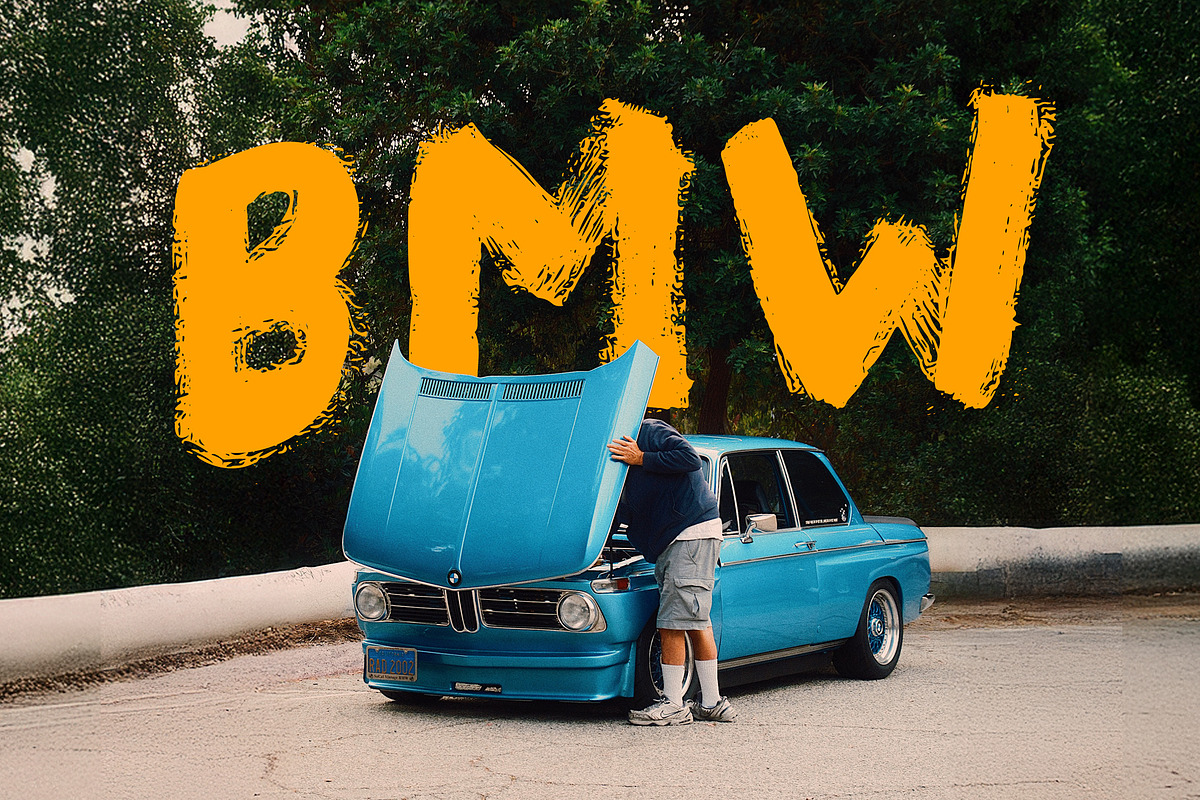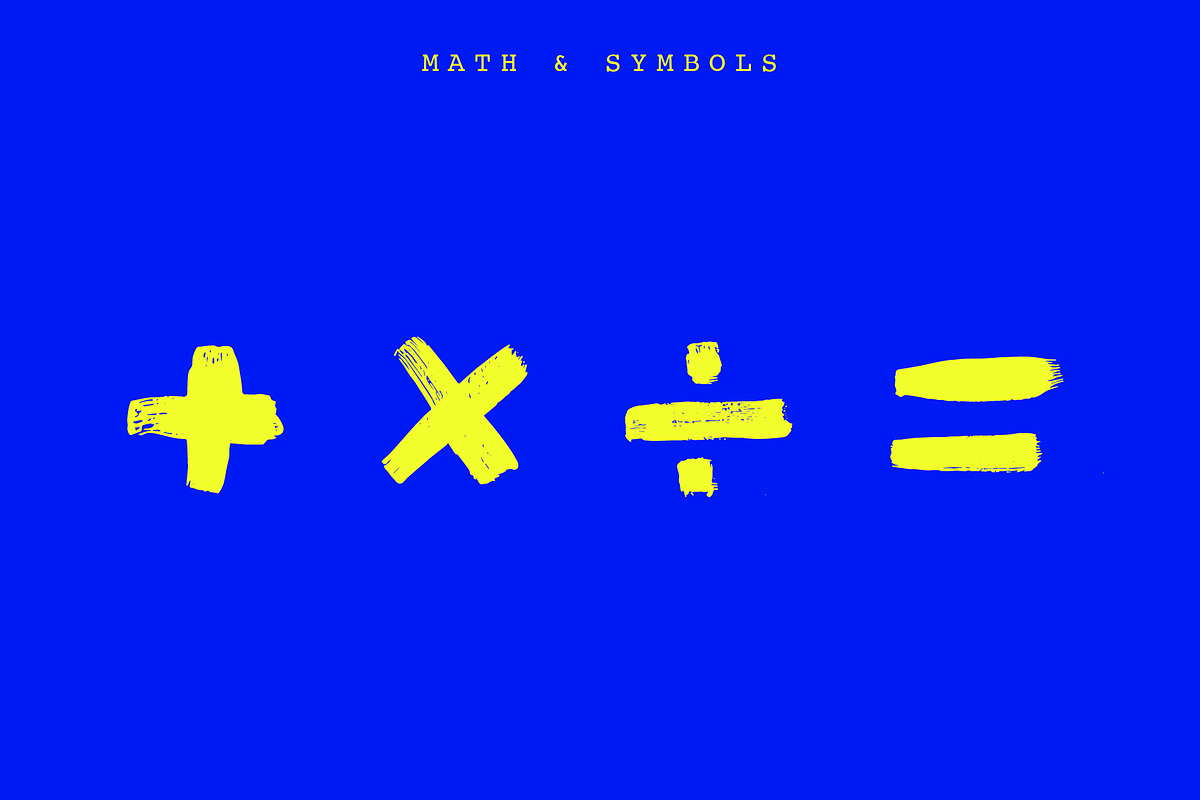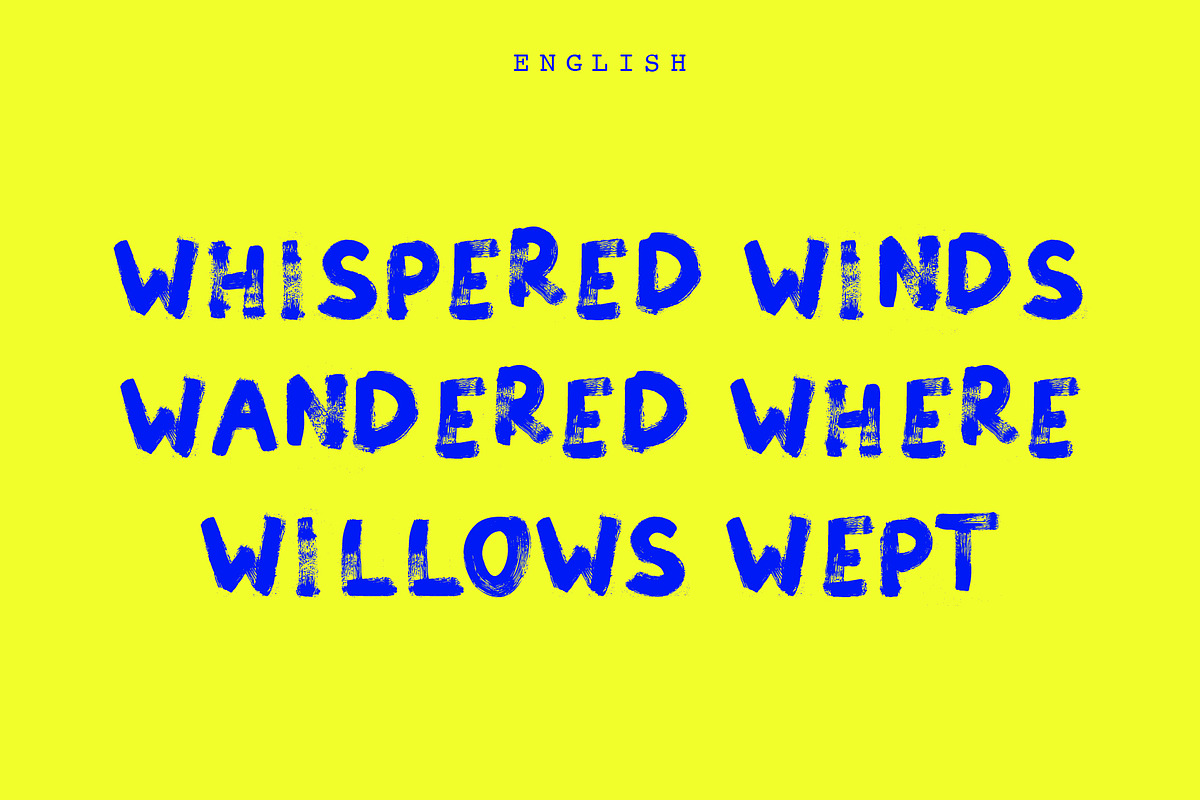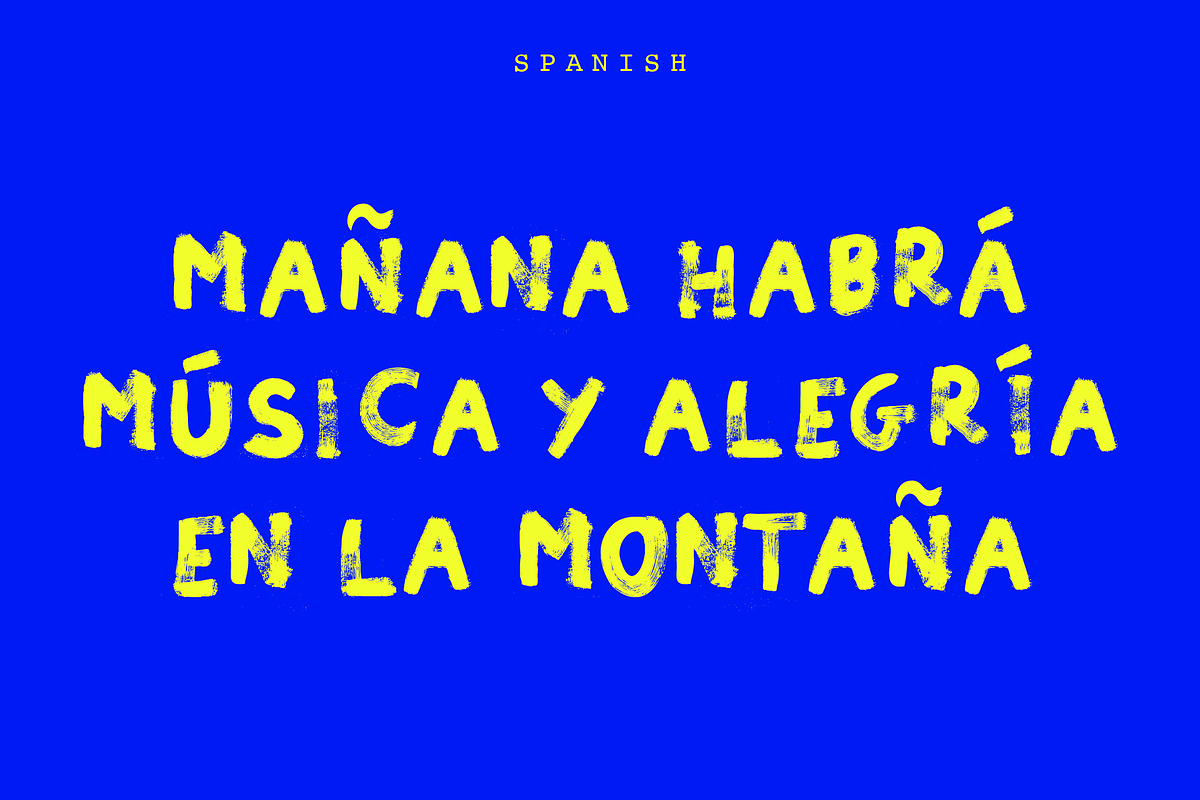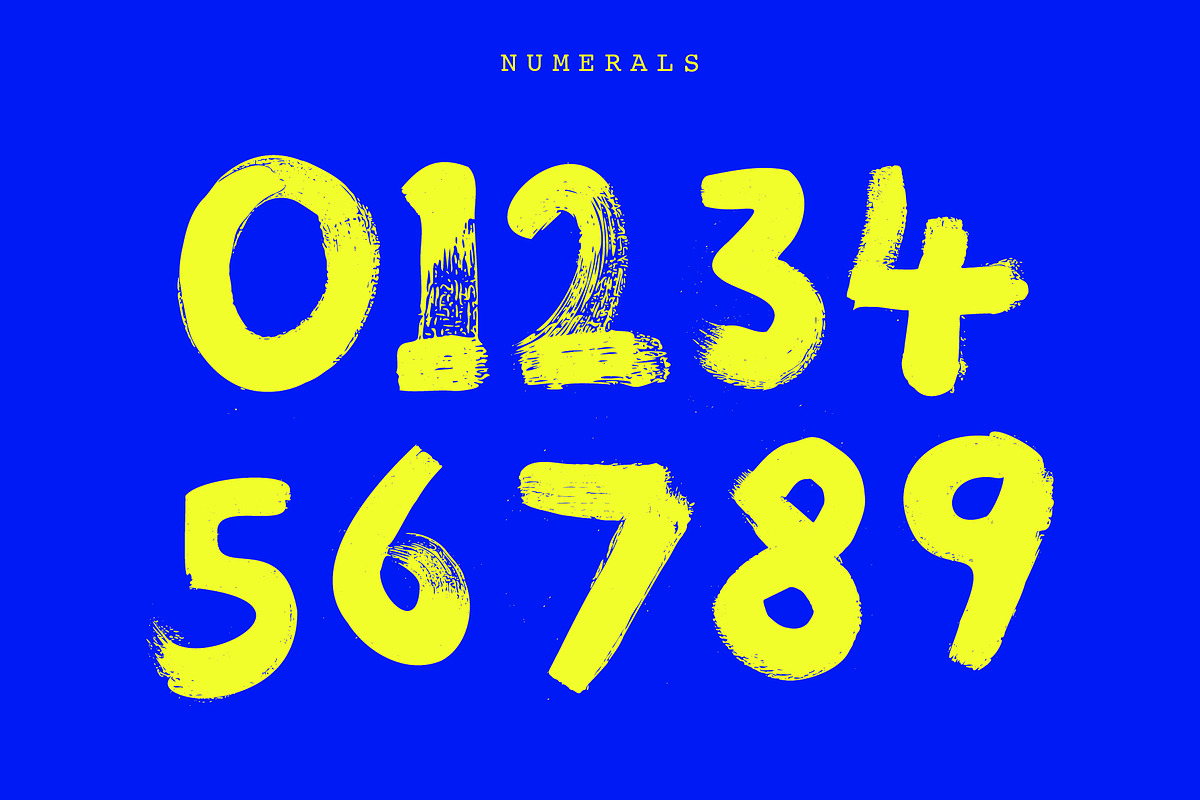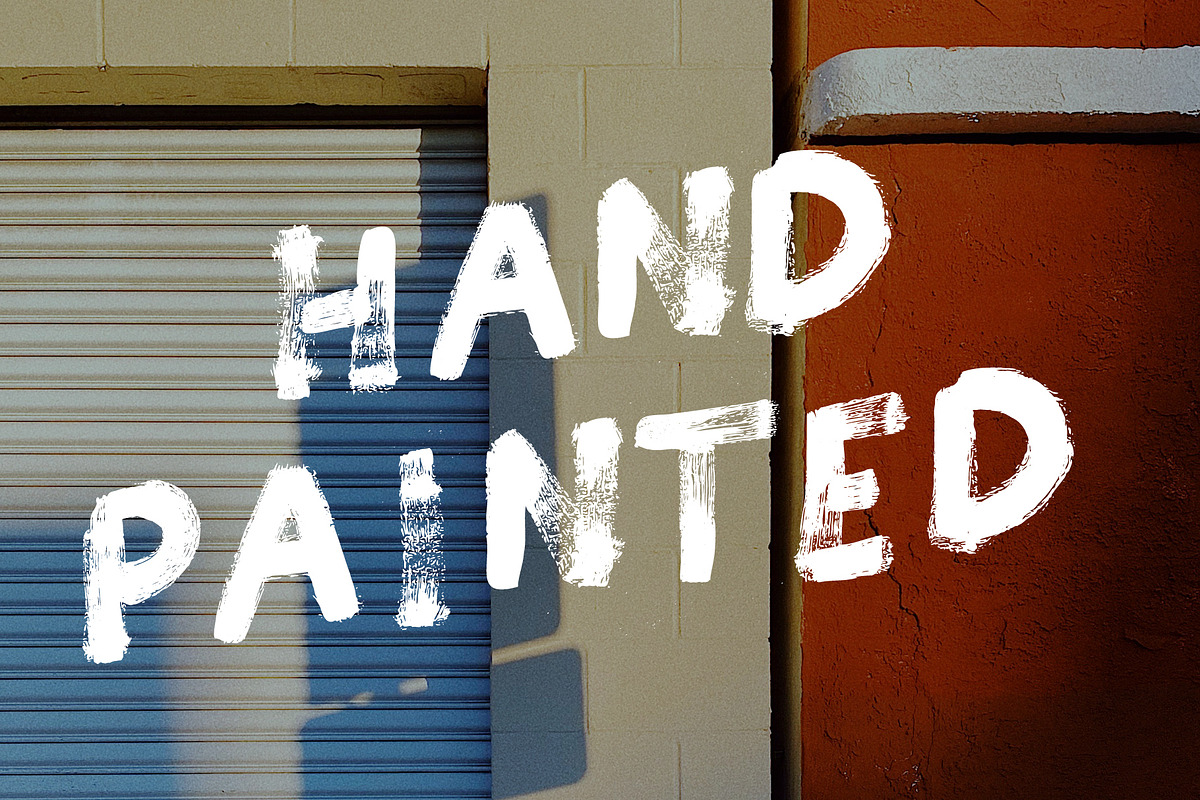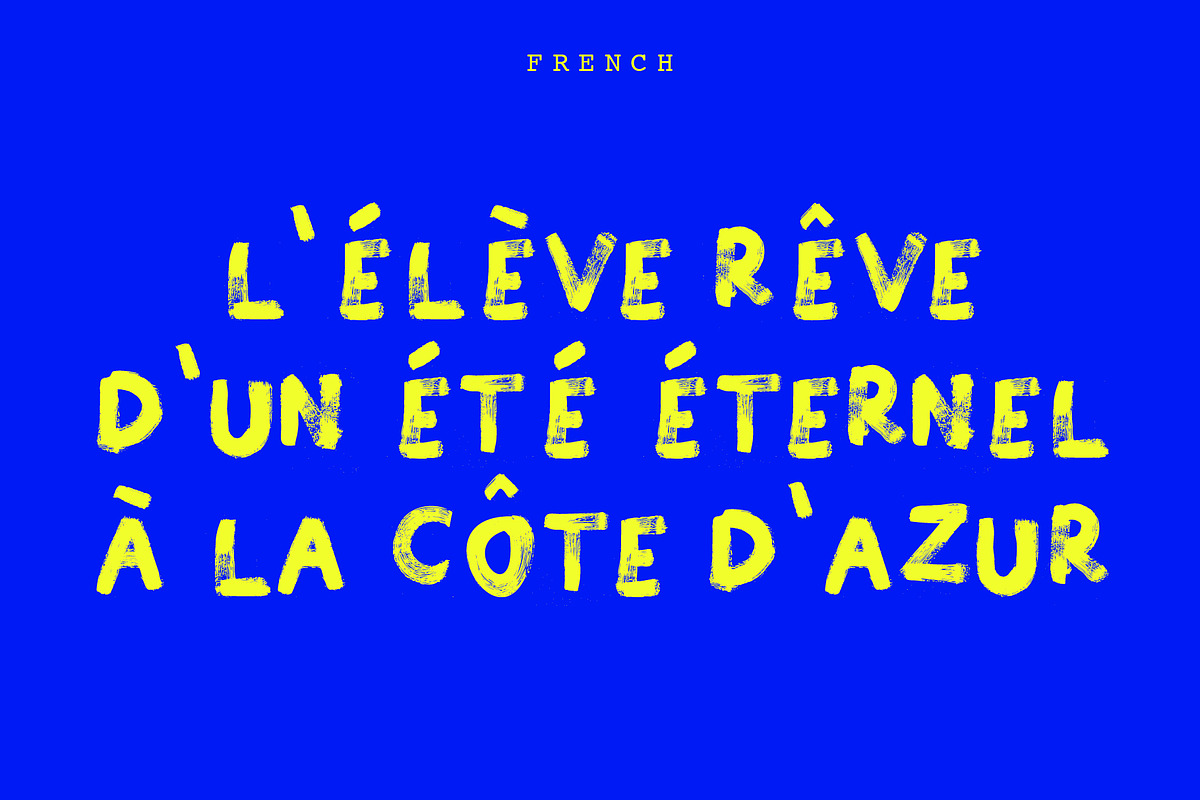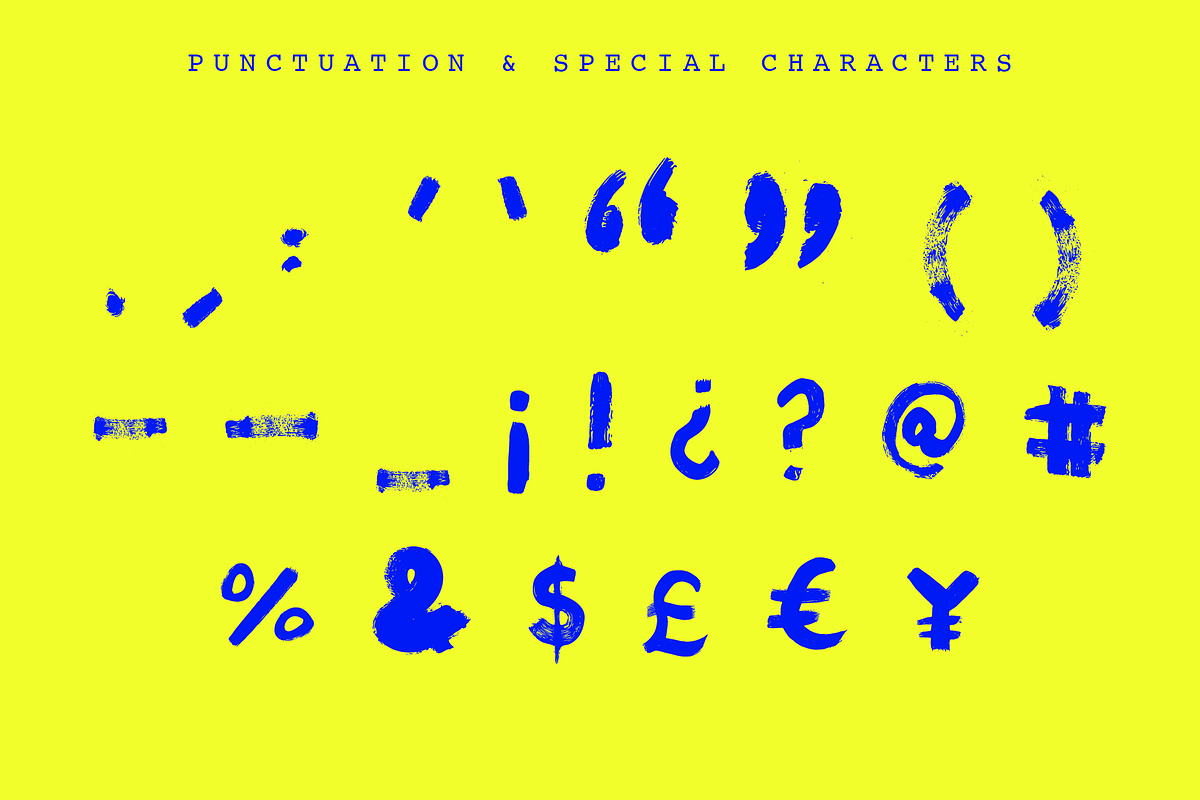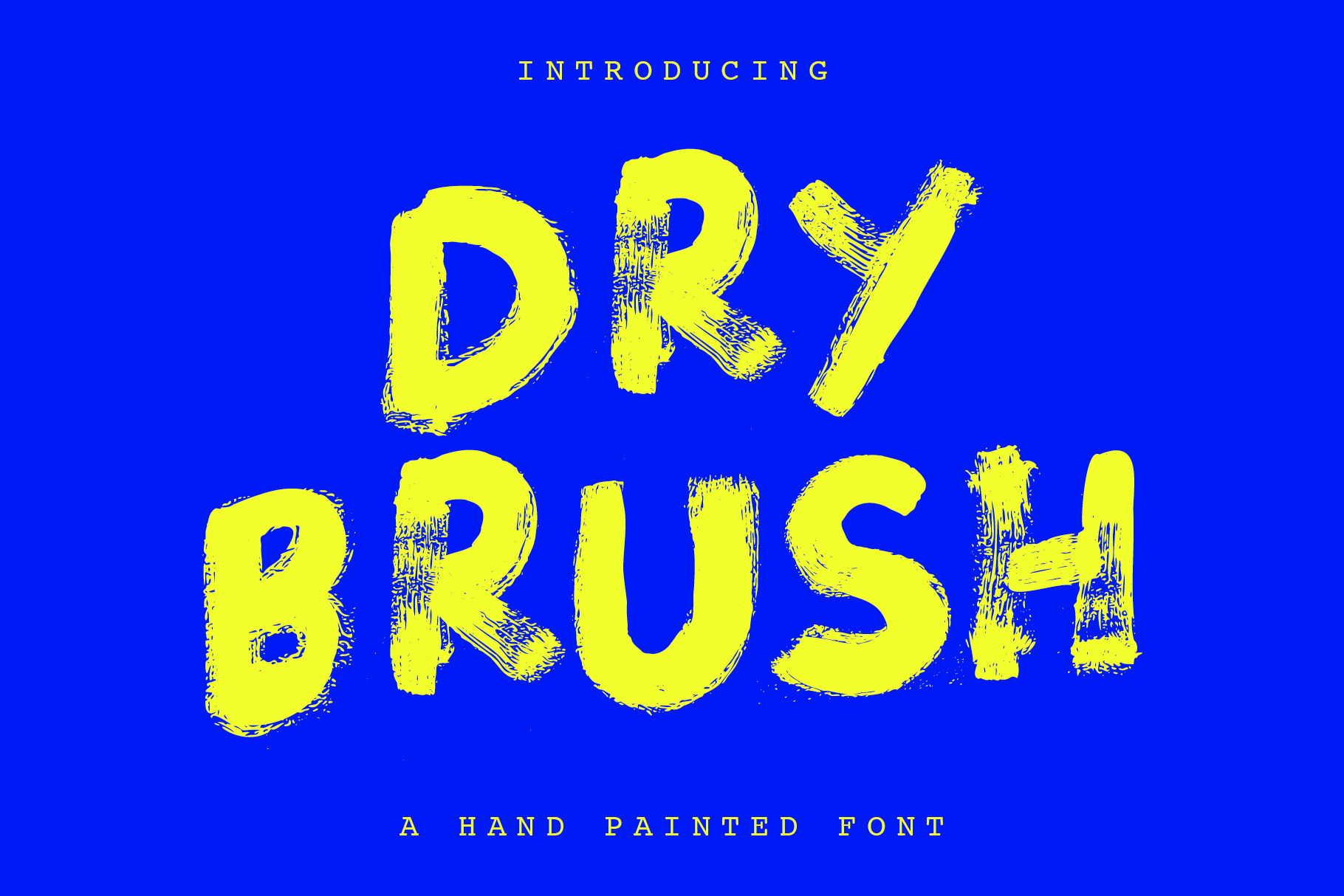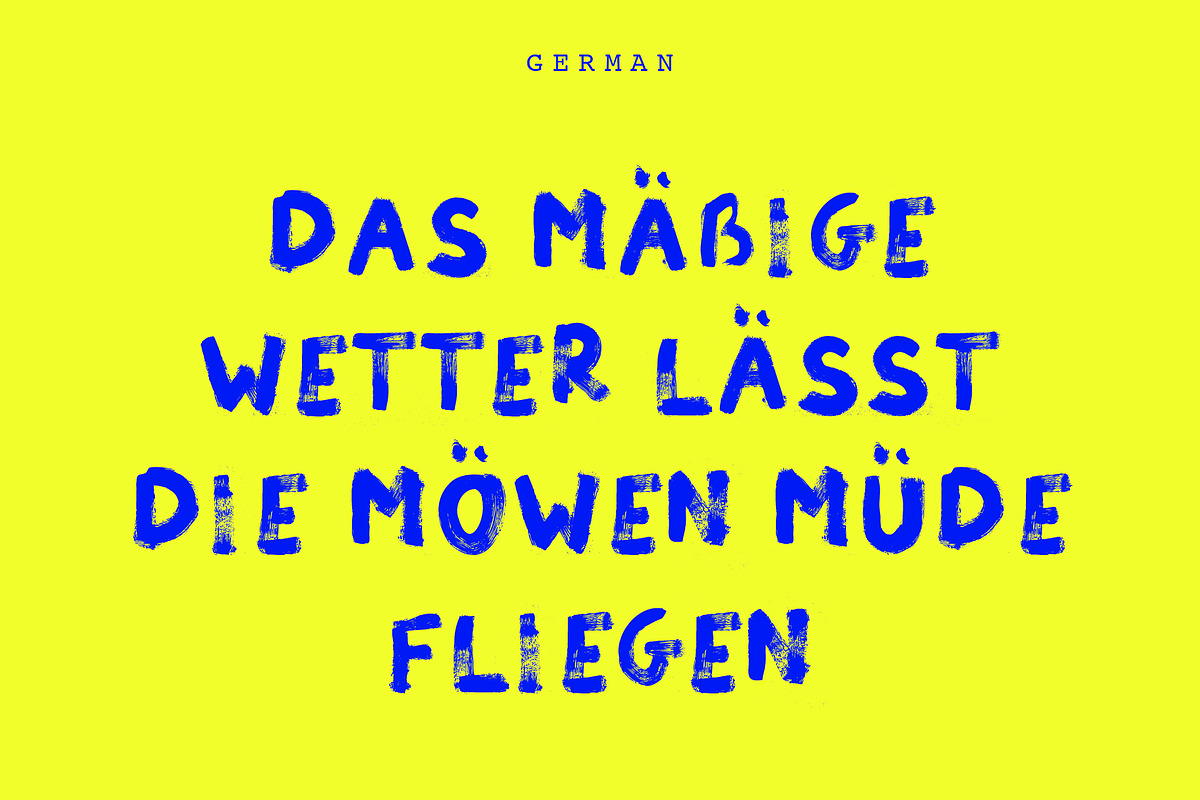
Hand-Painted Dry Brush Font
A striking hand-painted dry brush font that captures the raw energy of the artist’s hand. Every letter was created with real brush with ink then digitized, preserving its gritty charm, painterly edges, and tactile depth.
This isn’t a perfect font. It’s a human one, messy, expressive, and ready to make a statement. Whether you’re designing a poster, an album cover, or a brand that dares to stand out, Dry Brush Font brings bold texture and artistic imperfection to your typography.
Includes multilingual glyphs and special characters covering English, French, Spanish, and German, from accents and umlauts to inverted punctuation and ligatures like Æ and Œ.